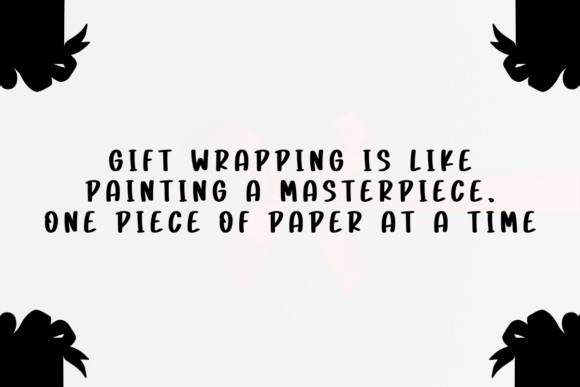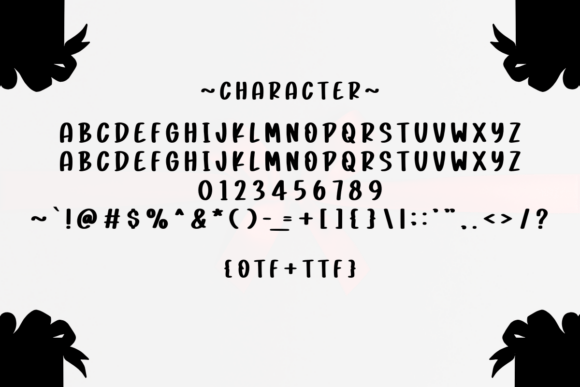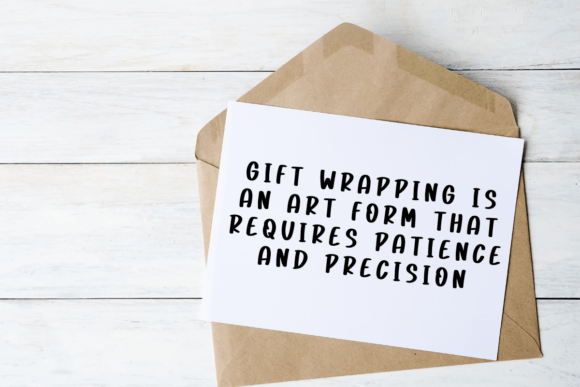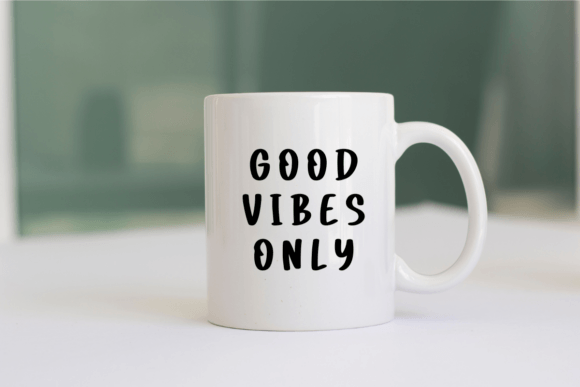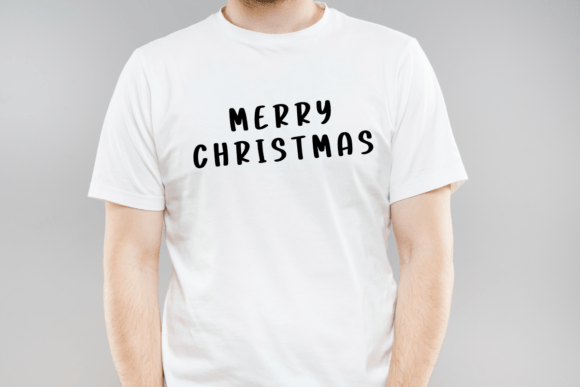
Introducing Gift Wrapping Font: The Perfect Addition to Your Design Collection
Are you a designer or crafter looking for a font that can add a touch of fun and playfulness to your projects? Look no further than Gift Wrapping Font, a bold and cheerful sans serif font that’s perfect for creating retro-inspired designs that are sure to delight.
What is Gift Wrapping Font?
Gift Wrapping Font is a unique and eye-catching font that’s designed to evoke the feeling of wrapping presents and giving gifts. With its bold lines, rounded edges, and bubbly personality, this font is sure to add a touch of whimsy to any design project. Whether you’re creating invitations, labels, or social media graphics, Gift Wrapping Font is the perfect choice for anyone looking to add a little extra fun and flair to their designs.
Key Features of Gift Wrapping Font
- Fun and playful design: Gift Wrapping Font features a bold and cheerful design that’s perfect for creating retro-inspired designs that are fun, cute, and bubbly.
- Sans serif font: This font features a clean and modern sans serif design that’s easy to read and perfect for use in a variety of design projects.
- Retro vibe: Gift Wrapping Font has a distinctly retro feel that’s perfect for creating designs that are inspired by the past.
Uses for Gift Wrapping Font
Gift Wrapping Font is a versatile font that can be used in a variety of design projects, including:
- Invitations: Use Gift Wrapping Font to create fun and playful invitations for parties, birthdays, and other special occasions.
- Labels: Add a touch of personality to your labels with Gift Wrapping Font, perfect for use on gifts, packages, and more.
- Social media graphics: Use Gift Wrapping Font to create eye-catching social media graphics that are sure to stand out.
- Crafting projects: Gift Wrapping Font is perfect for use in a variety of crafting projects, including scrapbooking, card making, and more.
Why Choose Gift Wrapping Font?
There are many fonts to choose from, but Gift Wrapping Font stands out from the crowd for several reasons:
- Unique design: Gift Wrapping Font features a unique and eye-catching design that’s sure to add a touch of personality to your designs.
- Versatile: Gift Wrapping Font can be used in a variety of design projects, from invitations to social media graphics.
Tips for Using Gift Wrapping Font
Here are a few tips for getting the most out of Gift Wrapping Font:
- Use it sparingly: Gift Wrapping Font is a bold font, so use it sparingly to add emphasis to your designs.
- Pair it with other fonts: Gift Wrapping Font pairs well with other sans serif fonts, so try pairing it with a simpler font to create visual interest.
- Experiment with colors: Gift Wrapping Font looks great in a variety of colors, so don’t be afraid to experiment and find the perfect color for your design.
Gift Wrapping Font is a fun and bold sans serif font that’s perfect for designers and crafters looking to add a touch of personality to their designs. With its unique design, ease of use, and versatility, this font is sure to become a favorite in your design collection. So why wait? Download Gift Wrapping Font today and start creating fun and playful designs that are sure to delight!